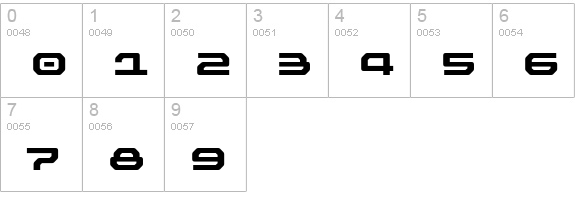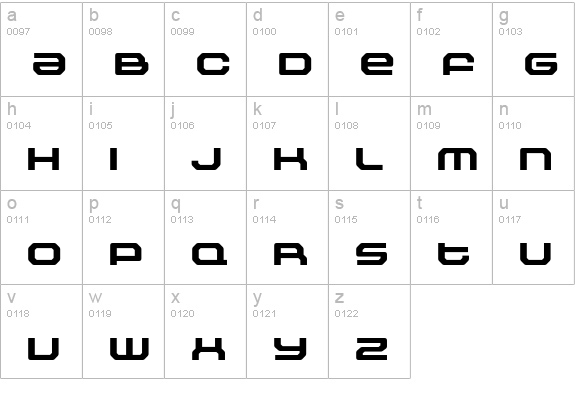
Outlander-Bold is a strong, high-contrast variant in the Outlander typeface family \xE2\x80\x94 well suited to headlines, attention-grabbing titles, and strong calls-to-action.
Outlander-Bold font is a striking and bold typeface designed to make a statement. With its strong and impactful letterforms, this font is perfect for grabbing attention and standing out in any design project. The thick strokes and sharp angles give Outlander-Bold a modern and edgy feel, making it ideal for headlines, titles, and branding. And the best part? Outlander-Bold font is available for free download at FontsMarket.com. This means you can easily access this versatile and eye-catching font to enhance your creative projects without any cost. Don't miss out on this fantastic opportunity to add a touch of boldness to your designs with Outlander-Bold font, now just a click away for free at FontsMarket.com.